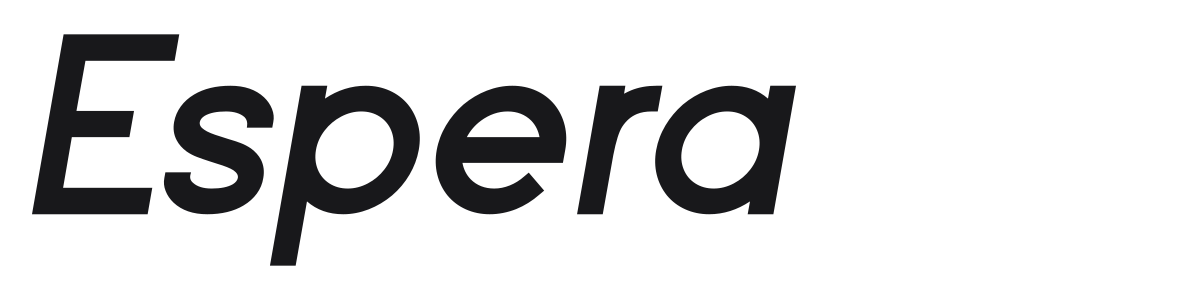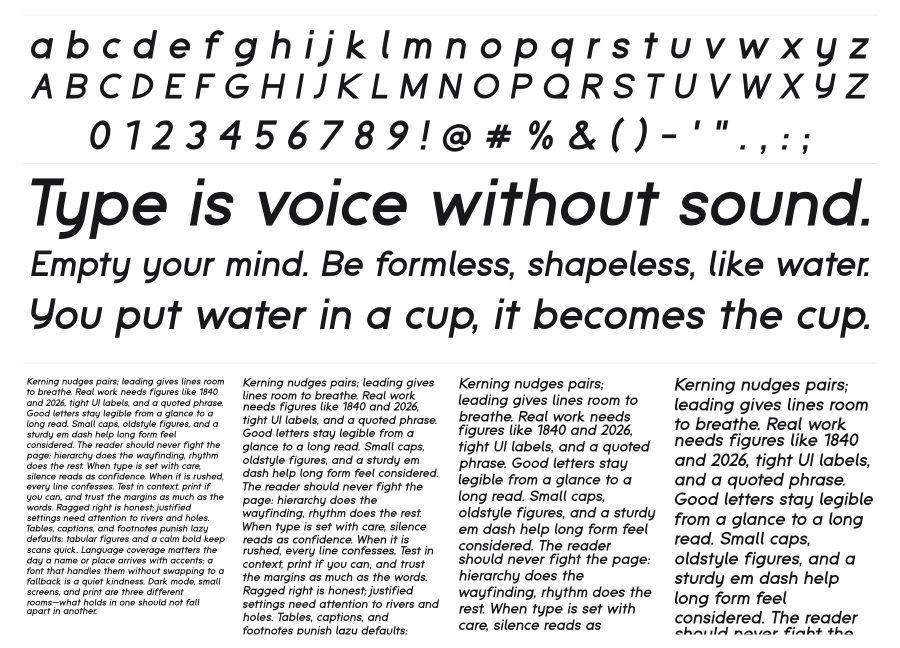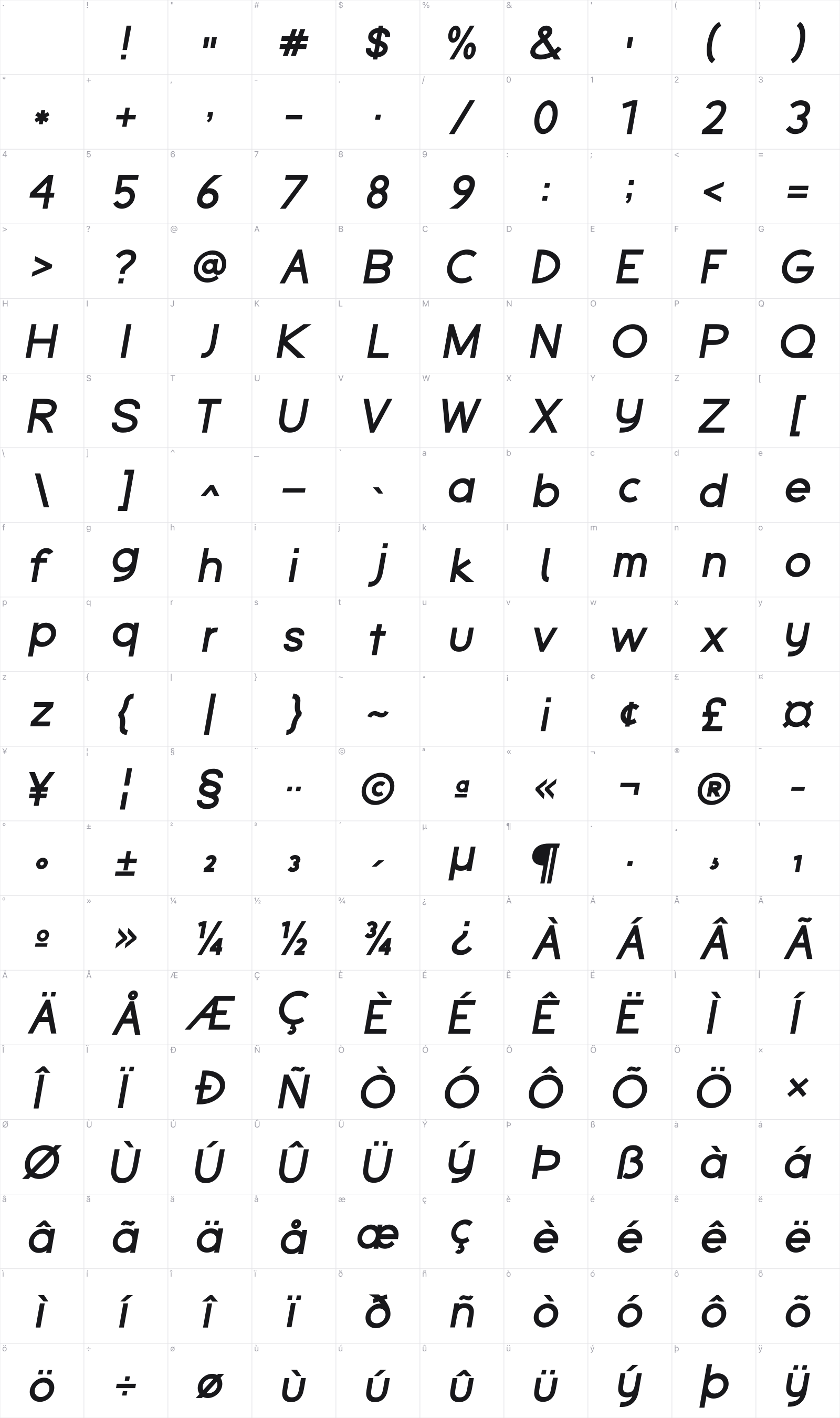
Espera
by Barbara Trein
Espera is a geometric sans-serif with wide, open proportions and a smooth semi-bold italic cut. Its low stroke contrast and rounded terminals keep it neutral and approachable across a range of applications. The generous x-height makes it read confidently at headline sizes and holds up well in medium-length text.